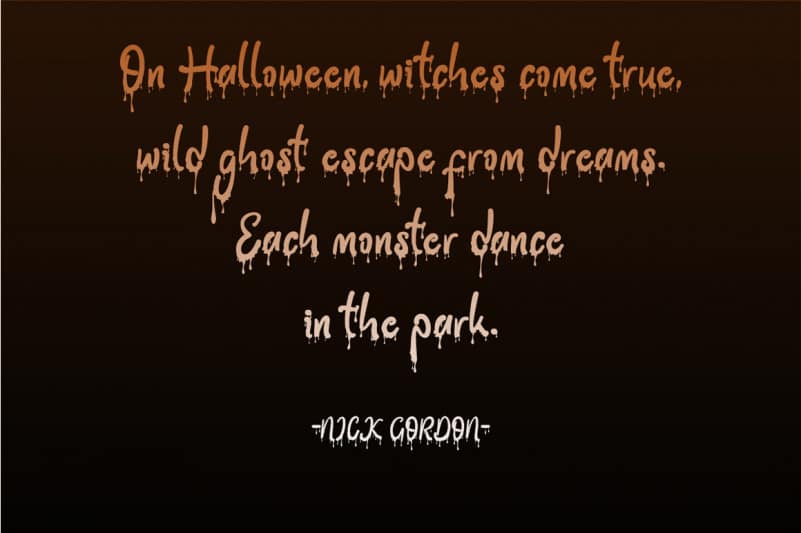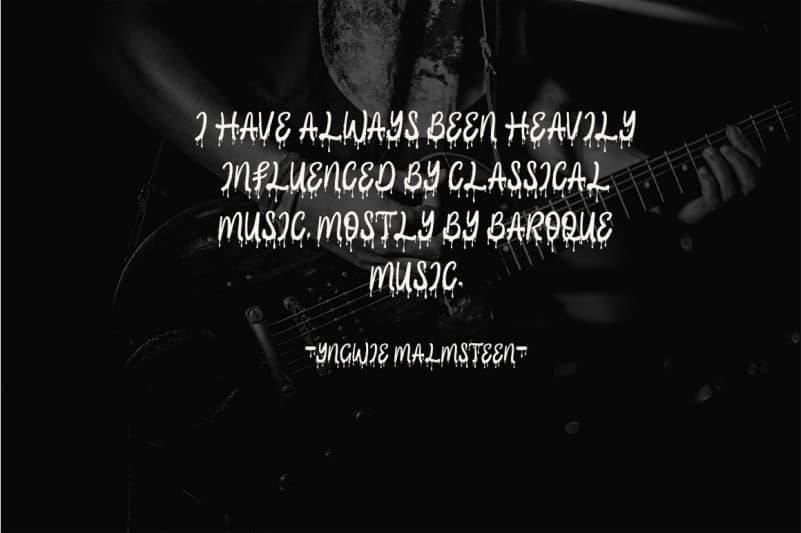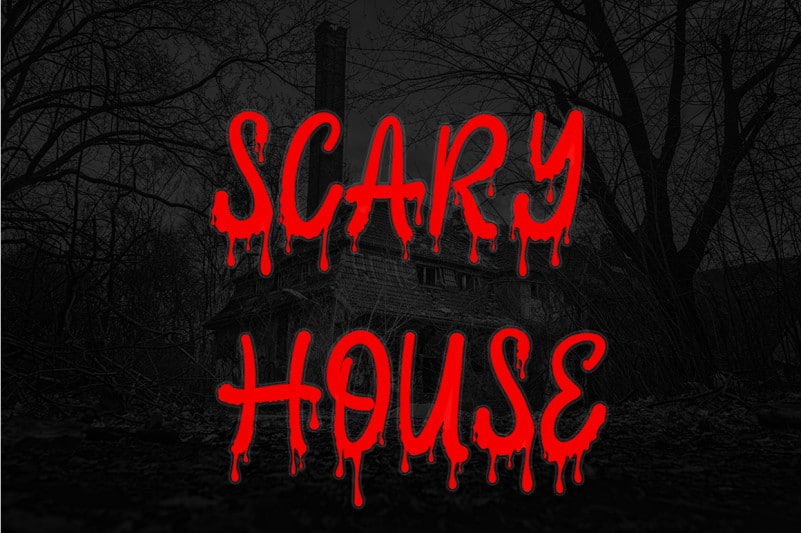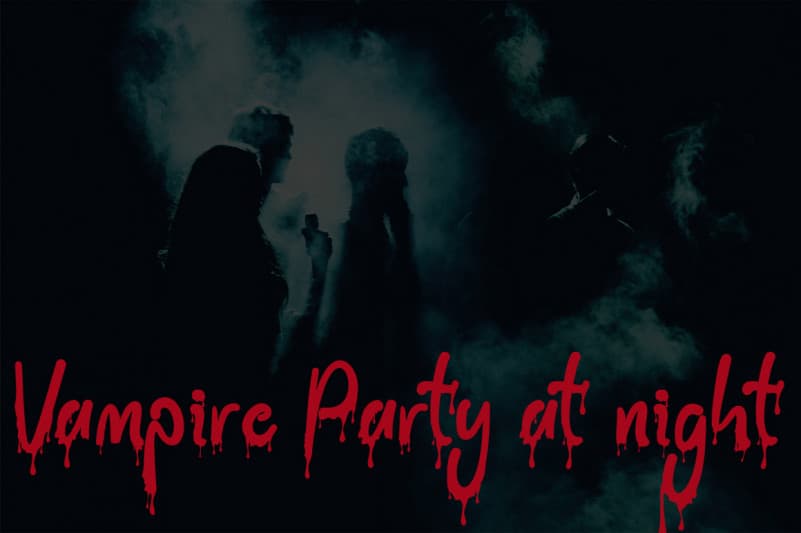
This font is named “Halloween Party Display Font“. This font was intentionally made to add to the excitement of the Hallowen event that will soon arrive. This “Halloween Party” font is very scary because there is blood on it. This font is perfect for adding to the excitement and mysticism of your Halloween event. In addition to Halloween events, this font can also be used as a movie title, book title or something else that is horror, can also be used to write quote words, tell mystical things, or as a horror and mystical pickle invitation card, and others.